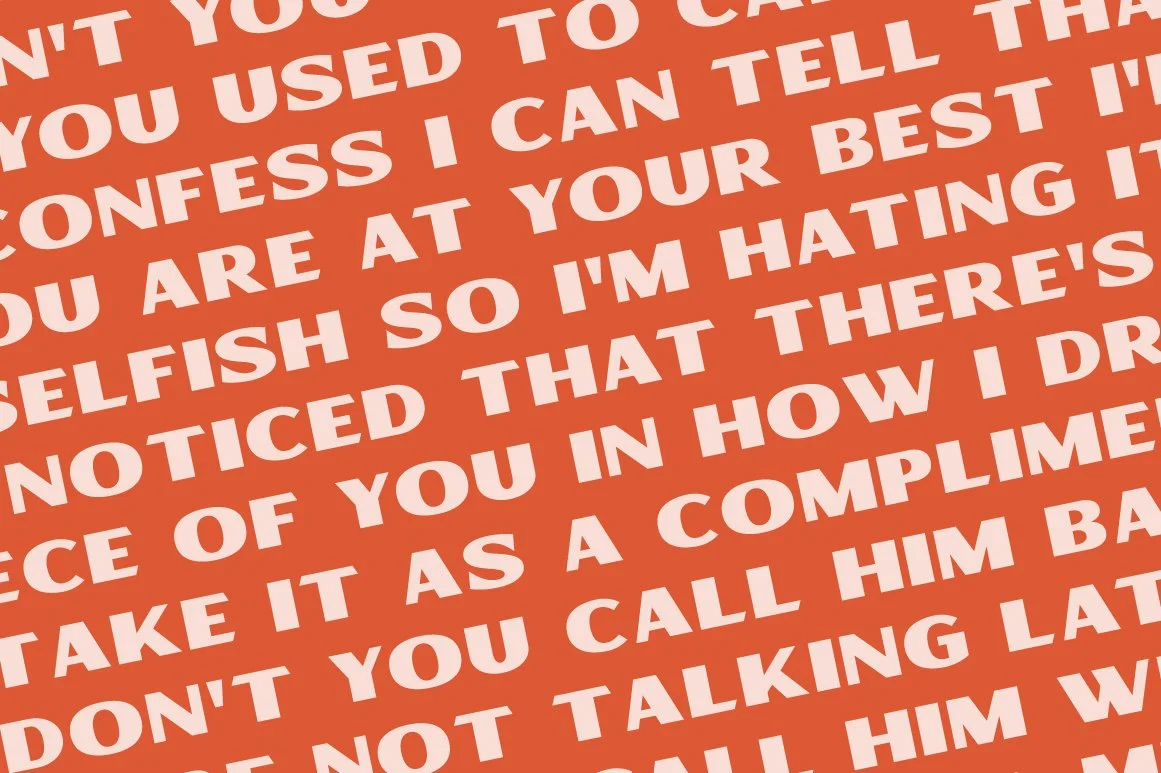
Cherry Bomb is a bold, full-figured sans serif font with curves in all the right places. This voluptuous and versatile font is stacked from front to back with sass and class; a veritable feast for the eyes wherever it’s used. Logos, packaging, posters or whatever your design needs, Cherry Bomb will be sure to catch all eyes 👀